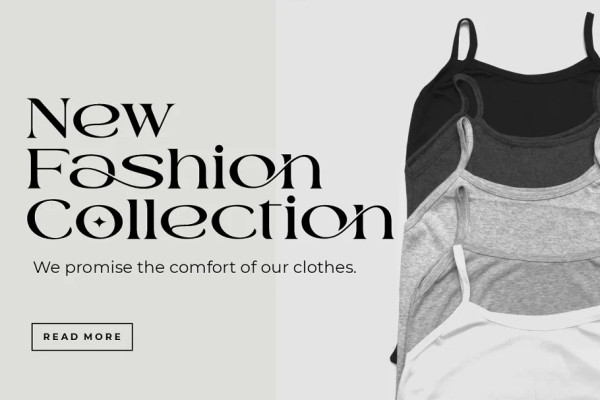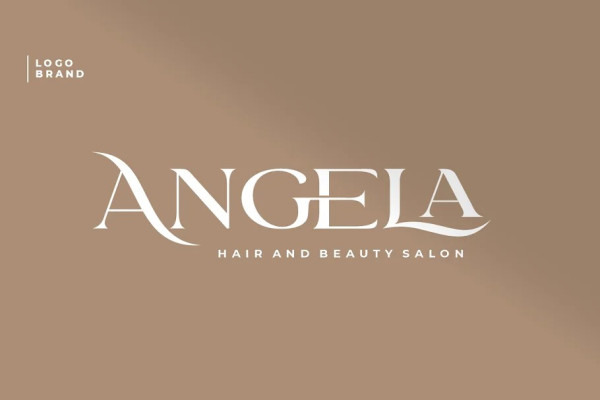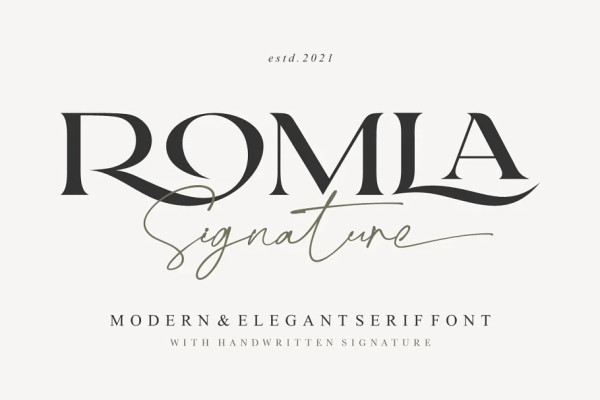
Romla Signature Font
Romla Signature Font is a modern and elegant duo font (serif and script). This font is PUA encoded which means you can access all of the glyphs and swashes with ease! Fall for its ravishing style and use it to create gorgeous designs.